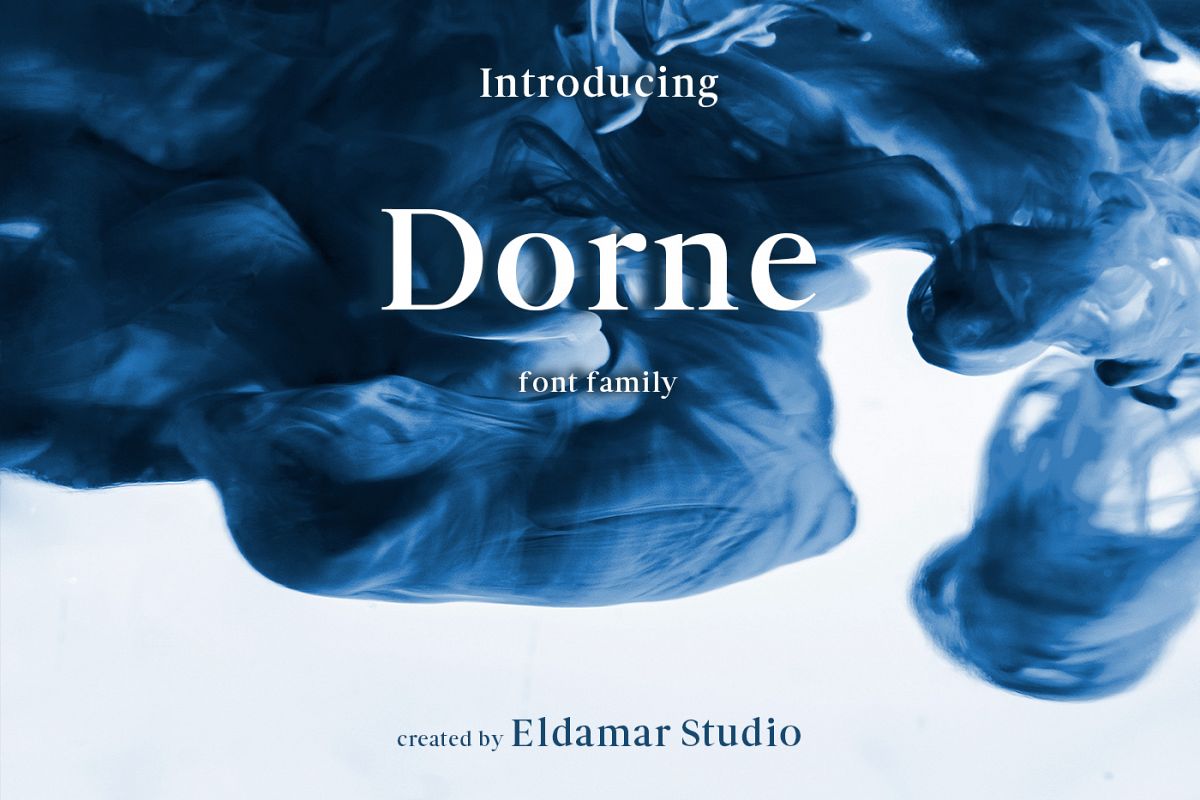
Dorne Font
Dorne regular
Dorne Font
it's a wonderful font with a unique, detailed and handmade look. These
fonts looks amazing in all caps with a wide-set spacing if you want to
try a classy look, or beautiful on its own in capital and lowercase
letters for something completely timeless. Perfect for gorgeous logos,
displays, headers, invitations, save the dates, weddings, titles, web
layouts and branding, etc.